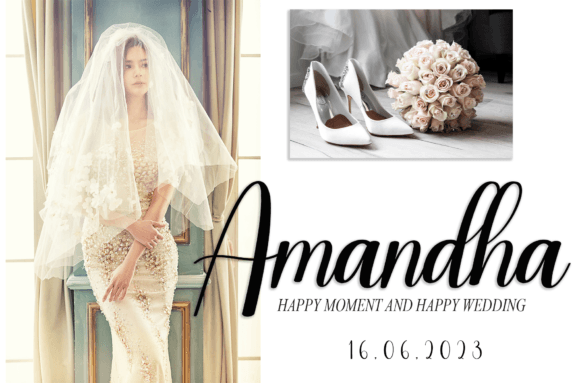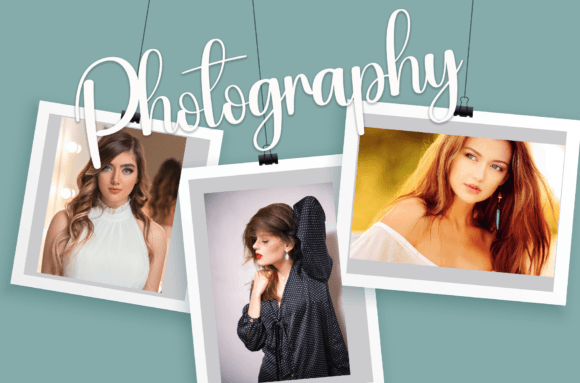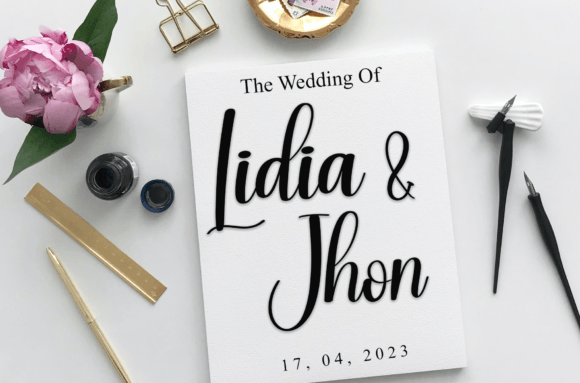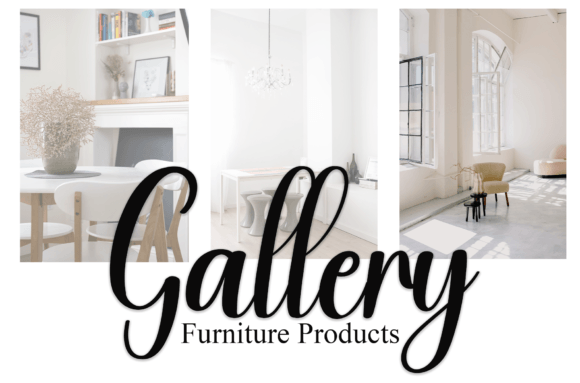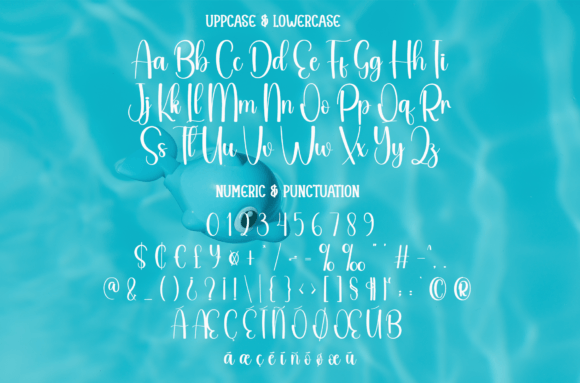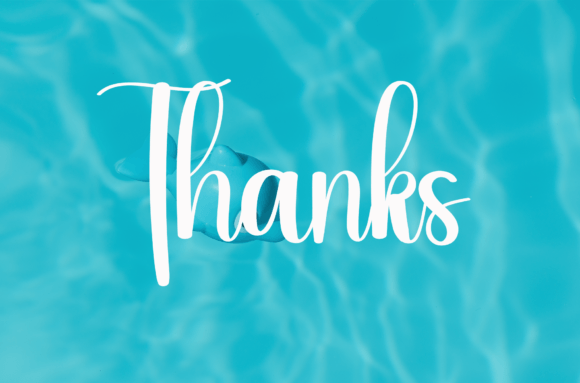
The Sweet Charm of Cyan Font: A Designer’s Delight
I still remember the time I was working on a wedding invitation project, and I just couldn’t find the right font to match the playful yet elegant vibe of the couple’s special day. That’s when I stumbled upon Cyan Font, a sweet and friendly handwritten font that instantly won my heart. Fresh and neat, Cyan Font is ideal for writing wedding invitations, cards, or any other design that might need a fun touch!
An Honest Review of Cyan Font
What I Love About Cyan Font
- ✨ Its unique blend of playfulness and elegance makes it perfect for a variety of design projects.
- ✅ The font’s clean and neat lines ensure that it remains legible even at smaller sizes.
- 💕 The handwritten feel of Cyan Font adds a touch of warmth and personality to any design.
- 🎉 It’s incredibly versatile and can be used for both digital and print projects.
While Cyan Font is an amazing font, there are a few things to keep in mind:
- ⚠️ Some of the more intricate glyphs may not display correctly at very small sizes.
- 🤔 The font’s playful nature may not be suitable for more formal or corporate designs.
The Designer Inspiration Behind Cyan Font
Cyan Font was designed with the intention of creating a friendly and approachable font that’s perfect for a variety of design projects. The designer’s inspiration came from the beauty of handwritten letters and the need for a font that’s both playful and elegant.
Q: What type of designs is Cyan Font best suited for?
A: Cyan Font is perfect for designs that require a playful and elegant touch, such as wedding invitations, cards, and other creative projects.